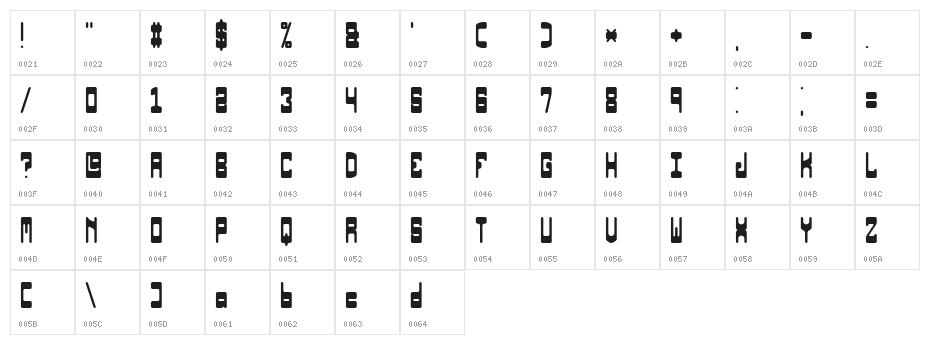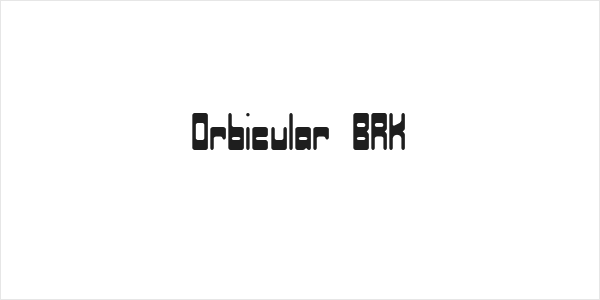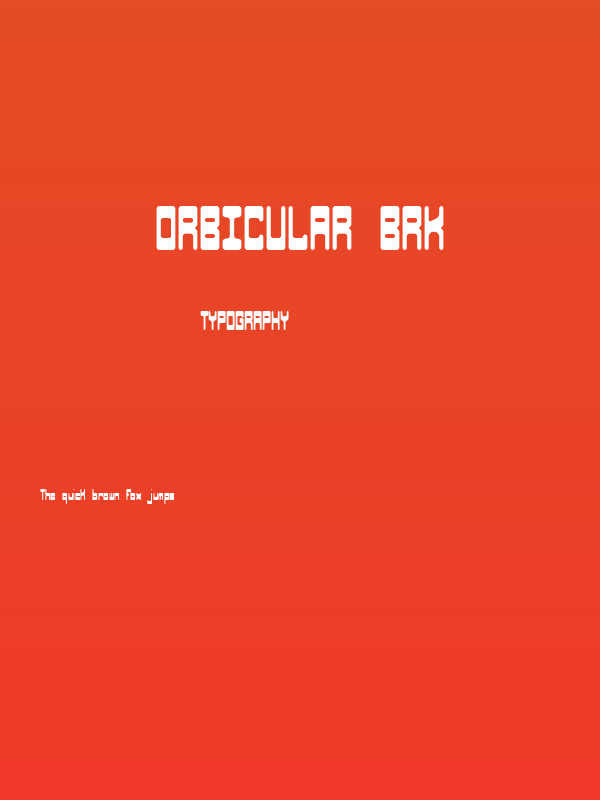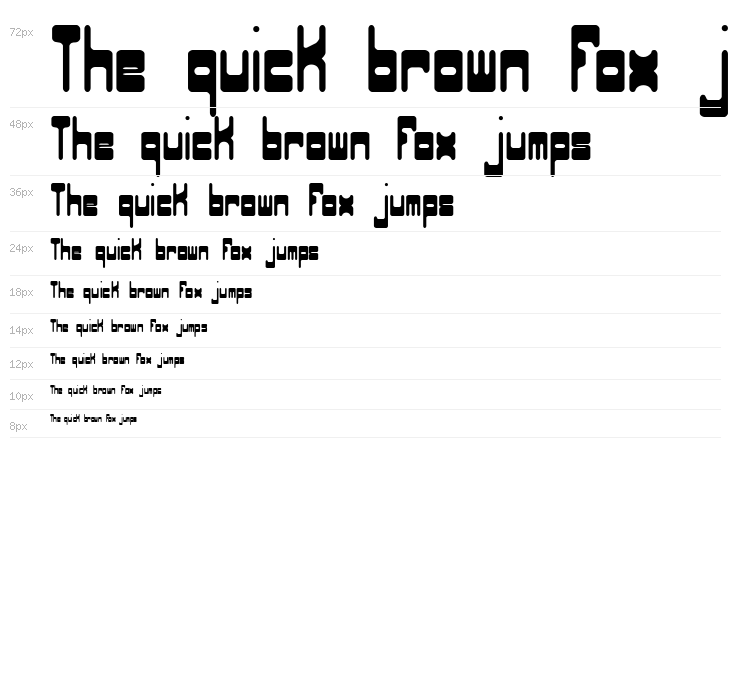
Orbicular BRK Font
Orbicular BRK Description
This font features a bold and geometric style with a strong presence. The characters are blocky and rounded, creating a unique and eye-catching appearance. The uppercase and lowercase letters maintain a consistent width, giving the font a uniform look. The numbers and special characters follow the same design principles, ensuring cohesion across all elements. The font's distinct style makes it suitable for projects that require a modern and bold aesthetic.
| Proposed Projects | Ideal for posters, logos, and headlines that need a strong visual impact. |